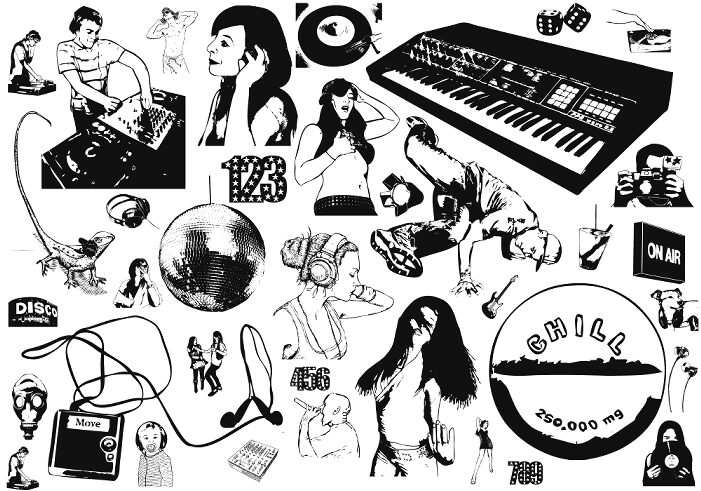
Denise DJ Font is a free music-themed pictorial font filled with crisp black-and-white illustrations. Its collection moves through DJs, turntables, vinyl records, headphones, microphones, studio gear, and listening figures, all drawn with strong silhouettes and lively inked detail. The images range from compact icons to wider scenes, but share a rough editorial line that keeps the set coherent.
As an illustrated badge or scene-builder, it gives club posters and event flyers immediate links to DJ culture. It also suits album packaging and music merchandise. Individual symbols can become part of the artwork itself, turning an on-air sign, record deck, or headphone motif into an emblem rather than neutral text.